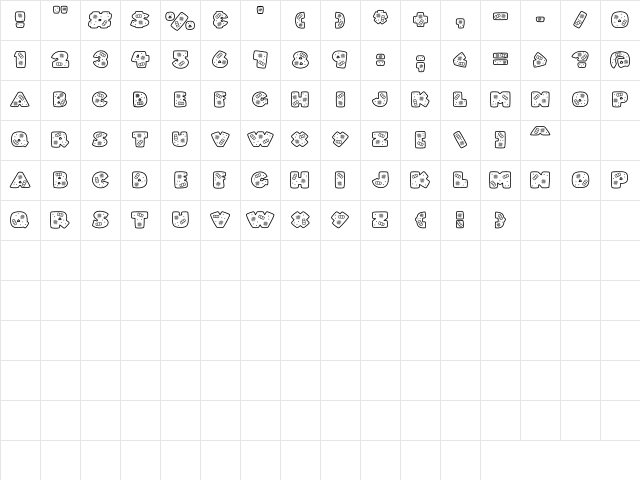
LD Owie Regular Free Font
LD Owie Regular
Design Context for LD Owie
LD Owie is a composed and adaptable typeface that performs quietly and consistently across a wide range of design contexts.